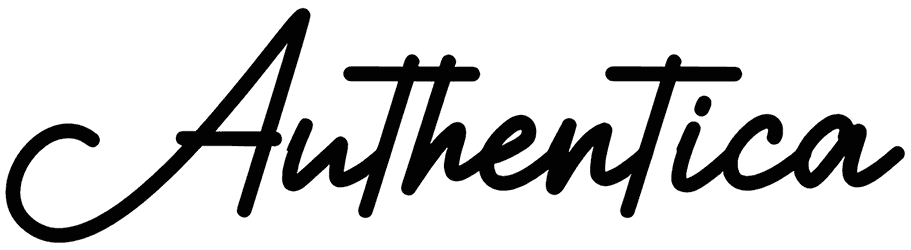
Authentica Font
Authentica is a cursive script font that you will enjoy utilizing! This classy monoline brush font contains wonderful sans serif style characters that are stylish and convey your informal typography with a friendly feel. Authentica is modern, considering that manipulating it for invitations, documents, fashions, tattoos, and branding is a very good idea since it’s creative and looks natural.